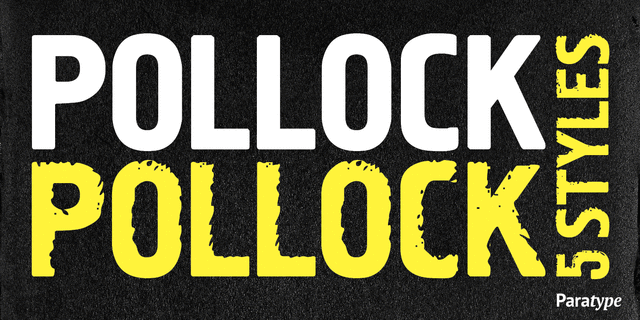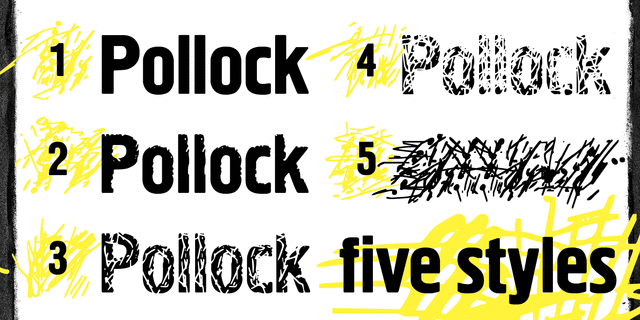
Pollock (4 fonts)
About PollockPollock is an experimental type family designed at ParaType (ParaGraph) in 1995 by Alexander Tarbeev, basing on PT Hermes, 1993, by Tagir Safayev and inspired by the art of Jackson Pollock. The font is well suited for advertising and display typography.
Associations for font family PollockTypeface personality and character:
flat, static, notable, serious, reputable, adult, old-fashioned, stable, heavy, convincing, authoritative, solid, high-quality, handicraft, comfortable, reliable, conservative, domestic, honest, motivating, workman, rude, gangland, urbanistic, craft brewed, aggressive, criminal, quick-tempered, incendiary, street, tough, shocking, autumn, impudent, dangerous, extremal, careless, yelling, urban, radical, nervous